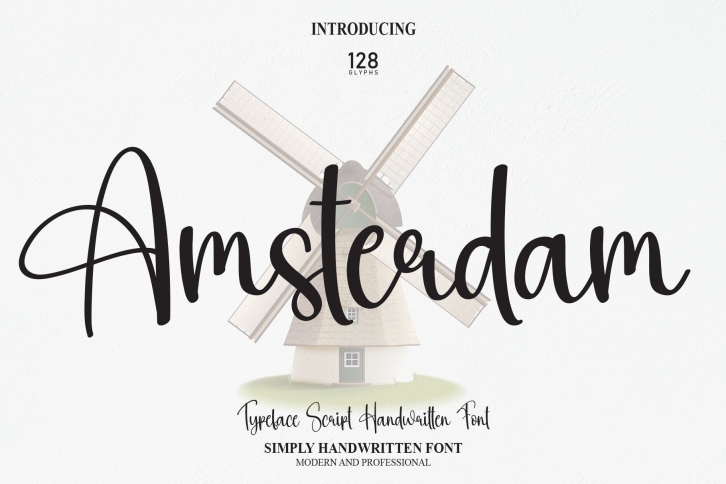
Amsterdam is a gorgeous font that was realeased on April 23, 2022. The font can be used in many style contexts and design environments. Perfect for invitations, magazines, websites, logos, and more! It was designed by Scratchones and the file size is 17.79 MB. Thanks for checking out this font!